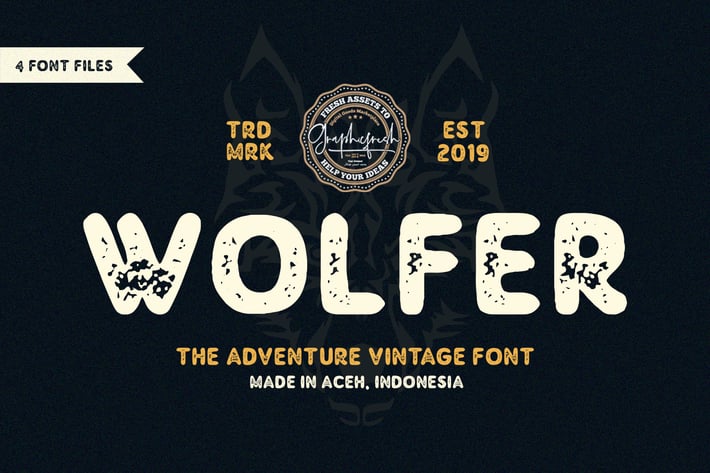
Wolfer | The Adventure Vintage Font
Wolfer is a vintage sans serif family including Regular and Textured versions as well as Italic versions of each. it's perfect for logos, name card, magazine layouts, invitations, headers, or even large-scale artwork. Wolfer includes 4 OTF & TTF files within the Zip folder.
- All Caps Font
- Punctuation and Number
- Multilingual Language